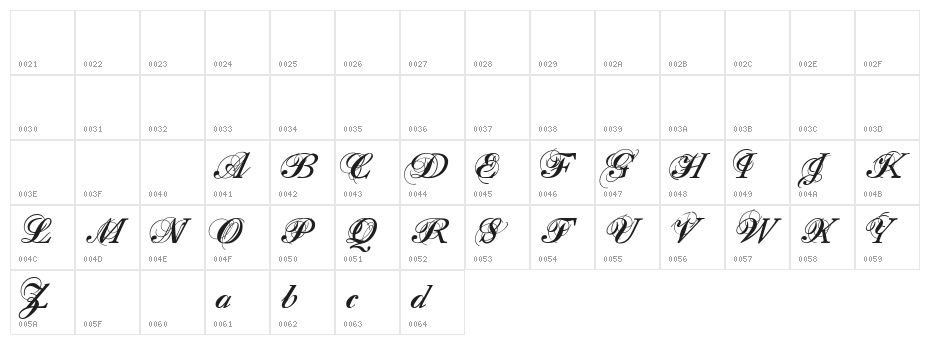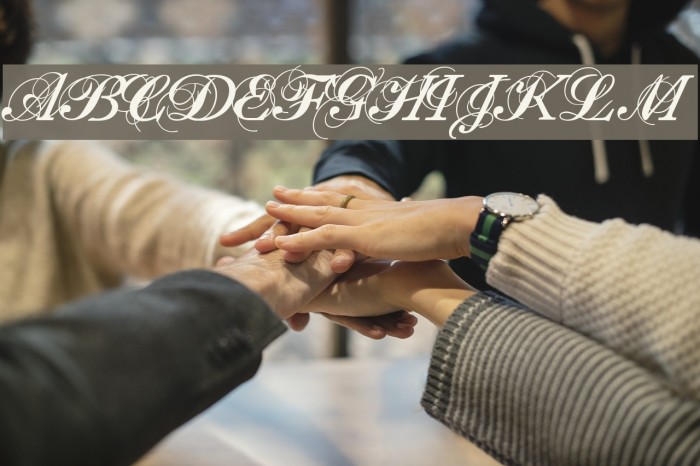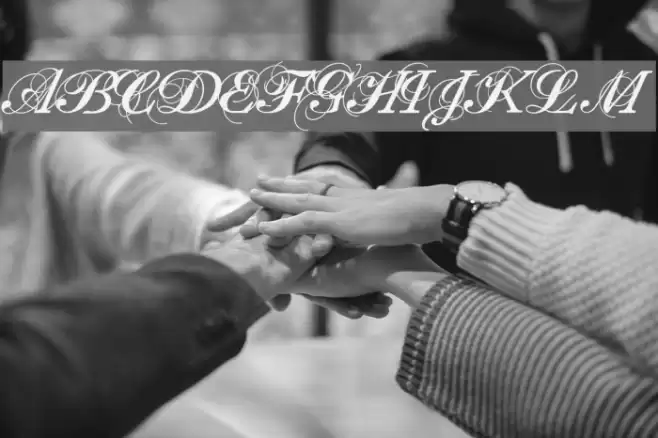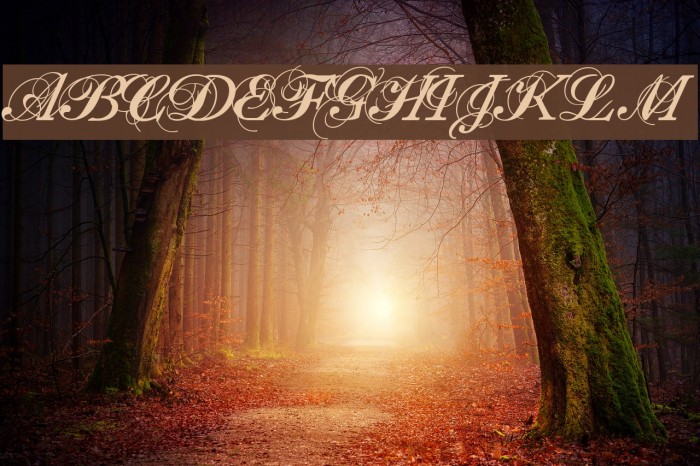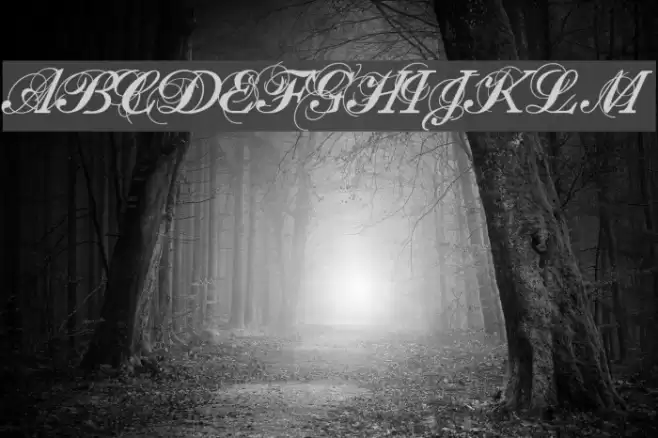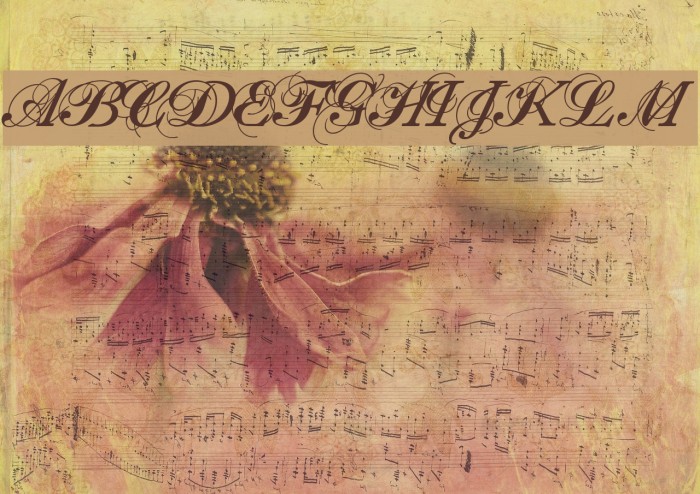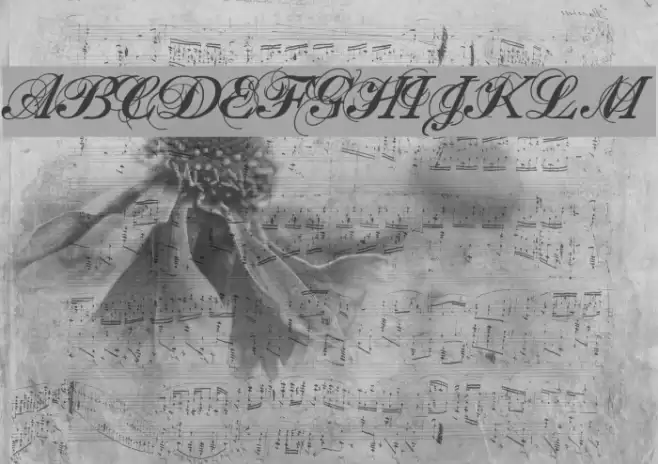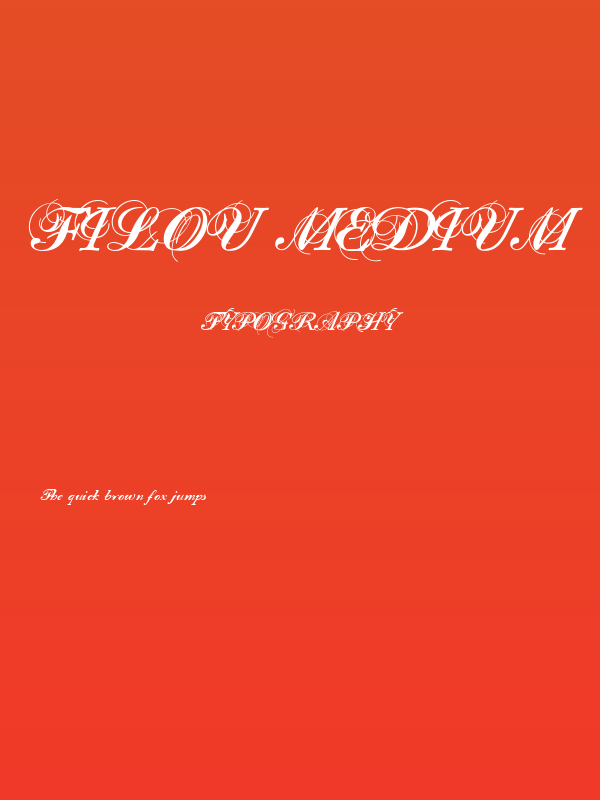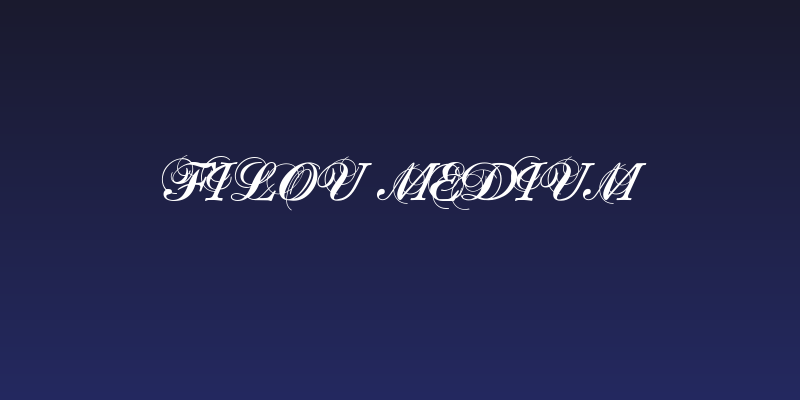
Filou Medium Font
Filou Medium Description
This font features an elegant and sophisticated design with a strong emphasis on decorative elements. The uppercase letters are adorned with intricate swirls and flourishes, creating a sense of grandeur and formality. The lowercase letters maintain a more streamlined appearance while still incorporating subtle curves and embellishments. The overall style is reminiscent of classic calligraphy, offering a timeless and refined aesthetic. The numerals and special characters are consistent with the ornate style, ensuring a cohesive look across all text elements.
Overall StyleClassic
Use CaseLogos, Invitations, Decorative headings
Proposed ProjectsIdeal for wedding invitations, luxury branding, formal event programs, and high-end product packaging.